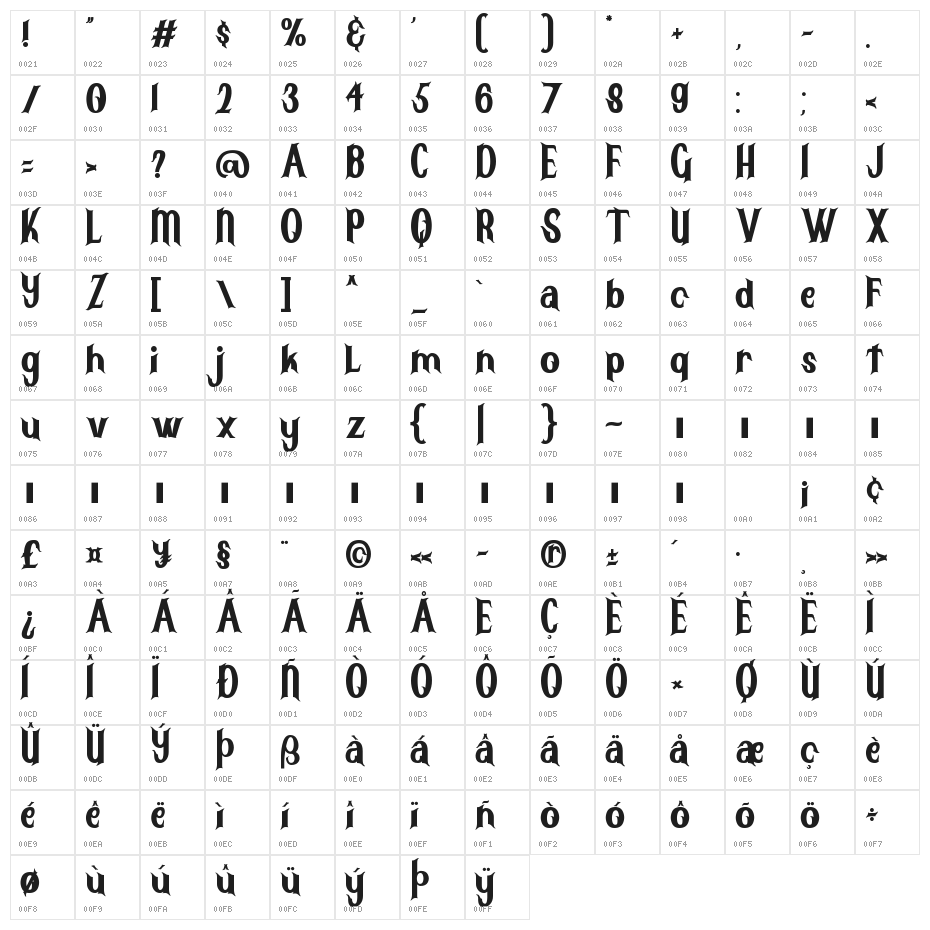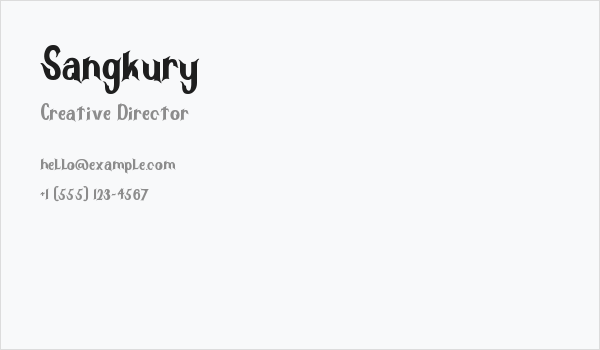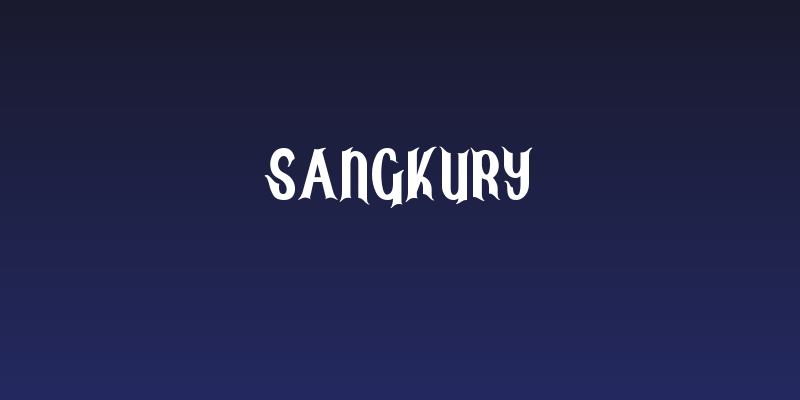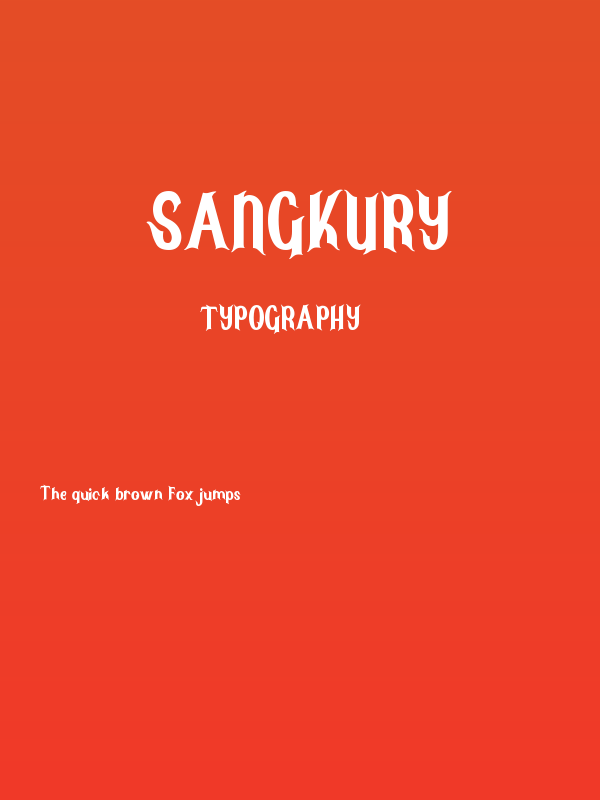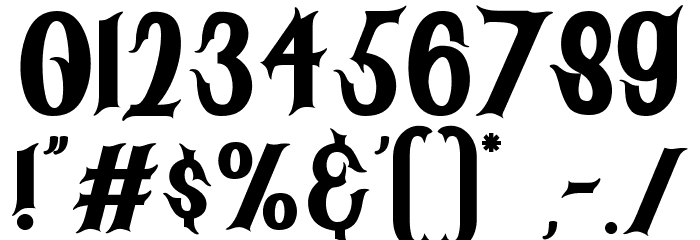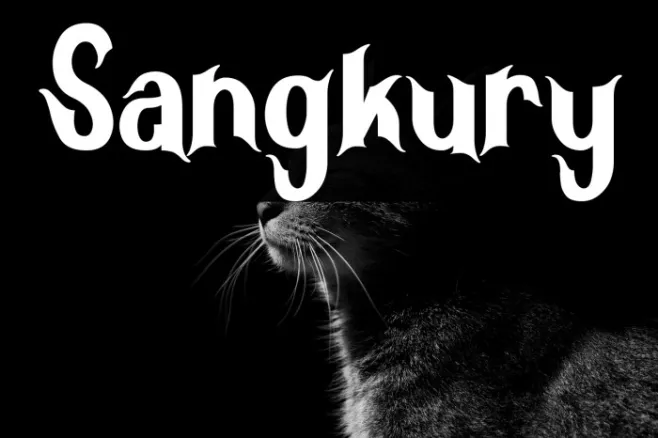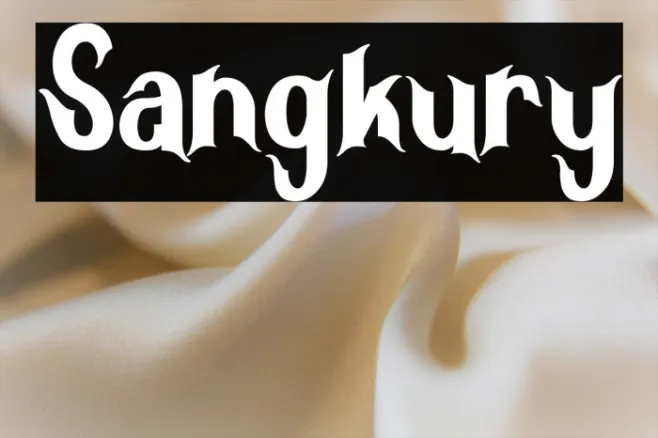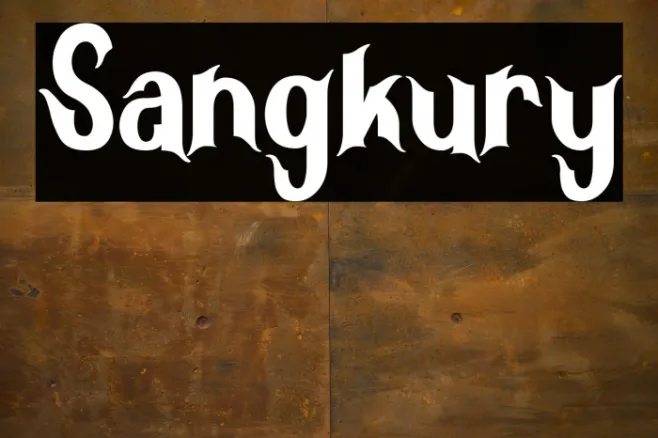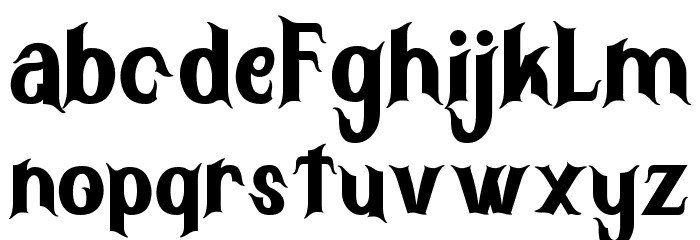
Sangkury Font
Sangkury Description
This font features a bold and dramatic style with a distinct Gothic influence. The uppercase letters are tall and imposing, with sharp, angular serifs that give them a commanding presence. The lowercase letters maintain the same Gothic aesthetic, with unique curves and angles that add to the overall dramatic effect. The numerals are equally bold, with a consistent weight that matches the letters. Special characters are designed with the same attention to detail, ensuring a cohesive look across all elements. This font's strong visual impact makes it ideal for projects that require a bold statement.
| Overall Style | Gothic, Dramatic |
| Proposed Projects | Ideal for posters, book covers, branding, and any project needing a bold, dramatic typeface. |